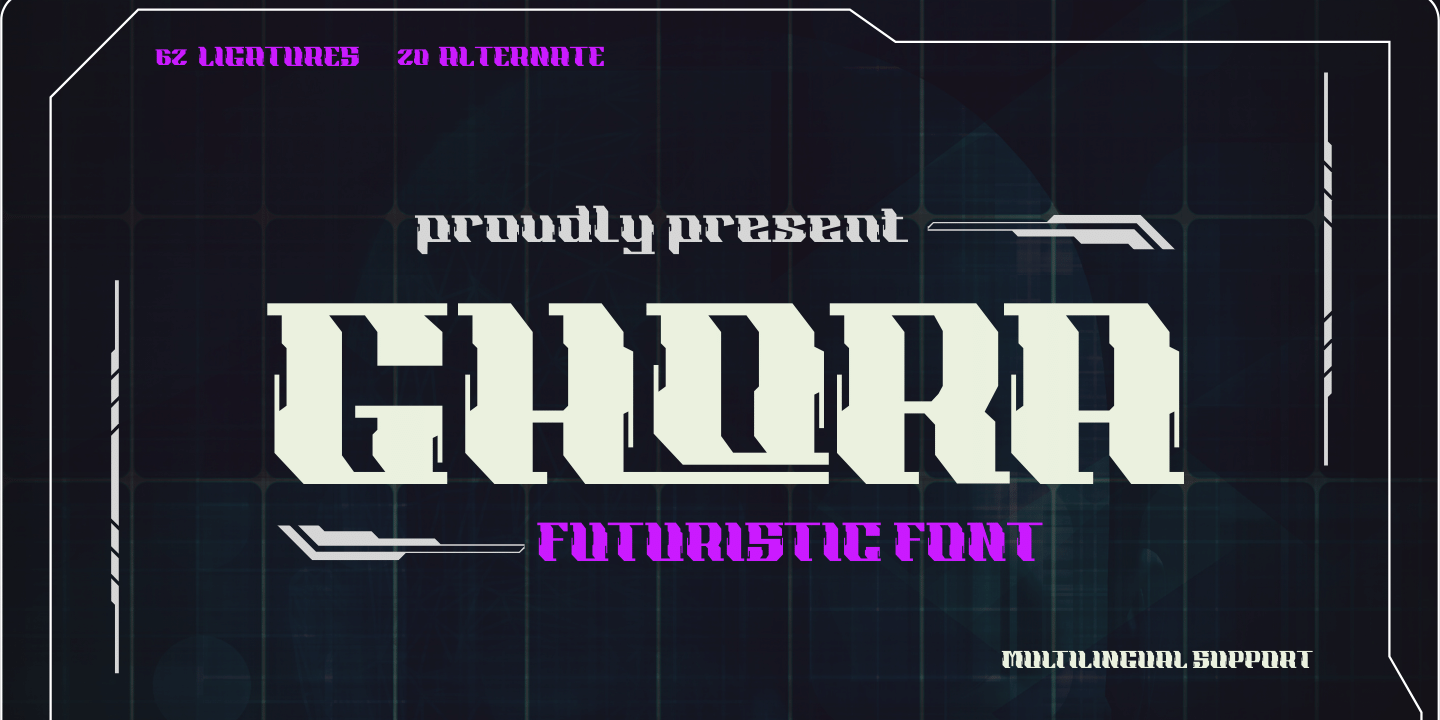
Ghora Font is perfect for equestrian branding, horse ranch signage, rural heritage materials, traditional farming communications, countryside tourism graphics, western-themed designs, agricultural publications, and rustic display typography.
What makes Ghora Font exciting is its equestrian heritage character that embodies horse culture and rural authenticity through strong letterforms and countryside appeal. This distinguished typeface features equestrian construction, rural details, and traditional personality that captures the essence of horse riding traditions and countryside lifestyle, making it ideal for projects seeking to communicate rural authenticity, equestrian heritage, and countryside values with genuine horse culture appeal and rural sophistication.
The Ghora Font family includes Light, Regular, and Bold weights, each maintaining the characteristic equestrian strength and rural appeal that define this distinctive typeface's countryside personality and traditional sophistication.
Ghora Font Free Download offers designers access to a typeface that perfectly captures the essence of equestrian culture and rural heritage traditions. This authentic font brings genuine countryside aesthetics to contemporary projects, making it essential for horse ranches, equestrian centers, and rural tourism brands targeting audiences who appreciate horse culture and countryside living. The font's equestrian construction and rural details ensure immediate recognition of authenticity and tradition while its distinctive character creates emotional connections among individuals passionate about horses and rural lifestyle. Whether designing equestrian event materials, horse ranch campaigns, or countryside tourism communications, this font delivers the equestrian authenticity and rural sophistication that horse enthusiasts expect. Its equestrian foundation and countryside symbolism make it indispensable for projects celebrating horse culture, rural heritage, and the enduring bond between humans and horses, ensuring communications resonate with audiences who value the equestrian tradition, countryside freedom, and rural authenticity that define genuine horse culture and countryside lifestyle across diverse equestrian and rural applications.